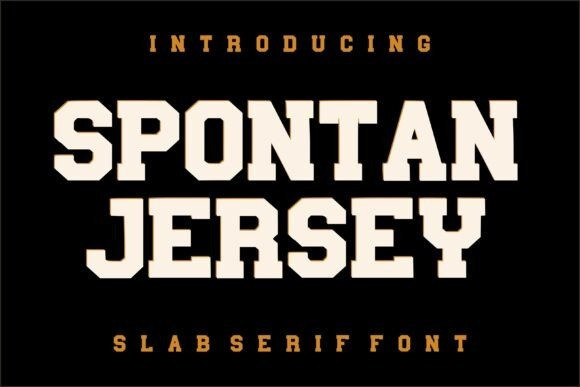
Spontan Jersey Font
Spontan Jersey Font is a bold and powerful slab serif font inspired by classic varsity and sports jersey typography. Designed with strong geometric shapes and athletic character, this font delivers a confident and energetic look.Perfect for sports branding, team jerseys, logos, posters, merchandise, and bold headline designs. Spontan Jersey combines retro collegiate style with modern clarity, making it versatile for both vintage and contemporary projects.Add a competitive edge and standout presence to your designs with Spontan Jersey!